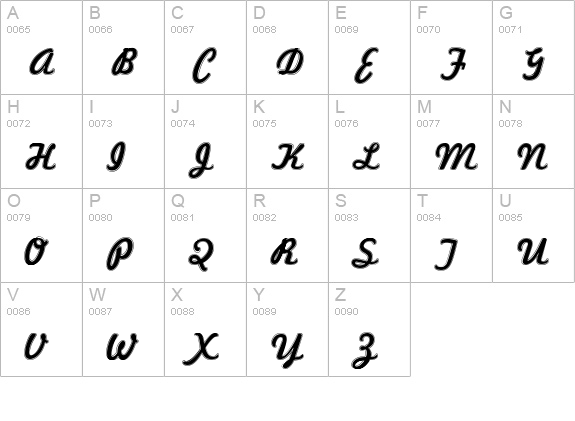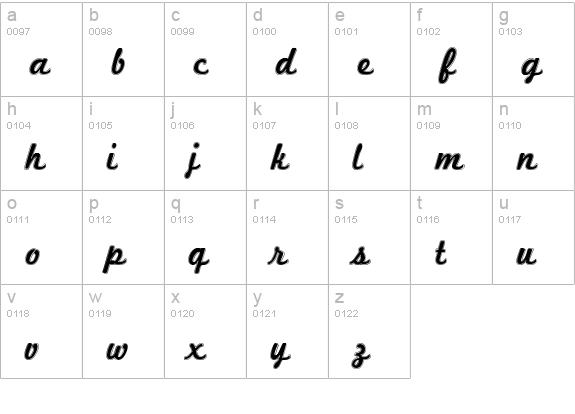
Marketing Script Inline Font Details
Introducing Inline font, the perfect choice for all your marketing needs! With its sleek and modern design, Inline font is sure to grab the attention of your target audience. This versatile typeface is ideal for creating eye-catching headlines, logos, and advertisements that will leave a lasting impression. But that's not all - Inline font is not only visually appealing, but it's also available for free! Yes, you heard it right. This incredible font can be freely downloaded at FontsMarket.com, where you can access a wide range of high-quality fonts for your creative projects. Whether you're a professional graphic designer, a small business owner, or someone who simply wants to add a touch of elegance to their personal projects, Inline font is the perfect choice. Its clean lines and stylish appearance make it suitable for a variety of industries, including fashion, beauty, technology, and more. With Inline font, you can effortlessly create stunning visuals that will captivate your audience and convey your message with style. Its bold and distinctive look will make your designs stand out from the crowd, ensuring that your brand leaves a lasting impression. So why wait? Download Inline font for free today at FontsMarket.com and unlock a world of possibilities for your marketing endeavors. Elevate your designs to new heights with this incredible font and watch as your creativity soars. Don't miss out on this amazing opportunity - get Inline font now and take your marketing materials to the next level!